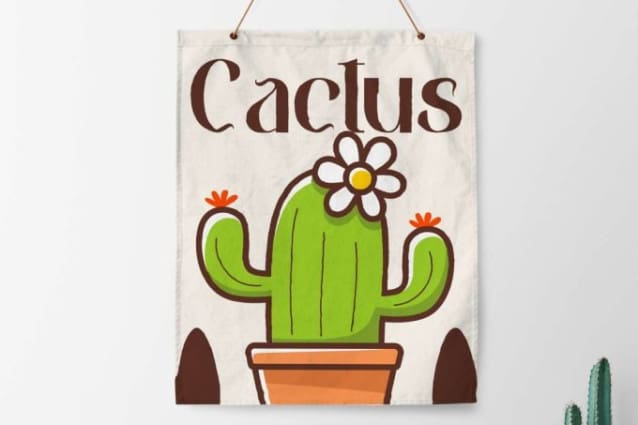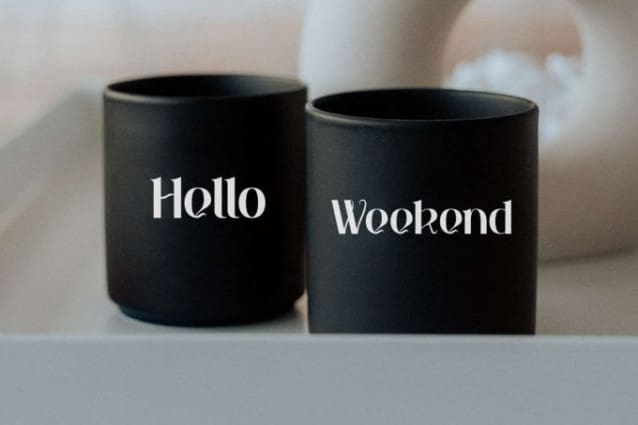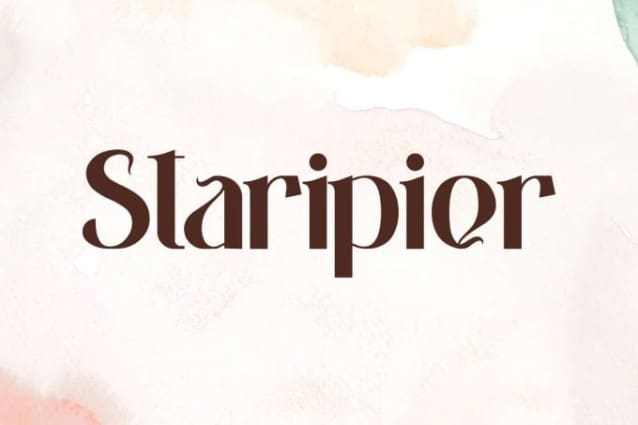
Staripier Font
Staripier Font is an elegant serif display font, created by VinType Studio. This font has a modern vibe that can catch a lot of people’s attention the moment they see it. It will be suitable for many industries, such as café, event organizer, fashion, festival, furniture, handicrafts, homeware, interior design, jewelry, photography, printing, publishing, restaurant, etc.
Staripier Font includes full set of Uppercase and Lowercase Basic Characters, Numerals and Punctuation. This font has its own uniqueness with a thin line on each letter. It would be good for many ideas, such as brand logo, brochure, business card, header, invitation, label, menu flyer, poster, product packaging, quotes, screen printing, signage, website, and more!